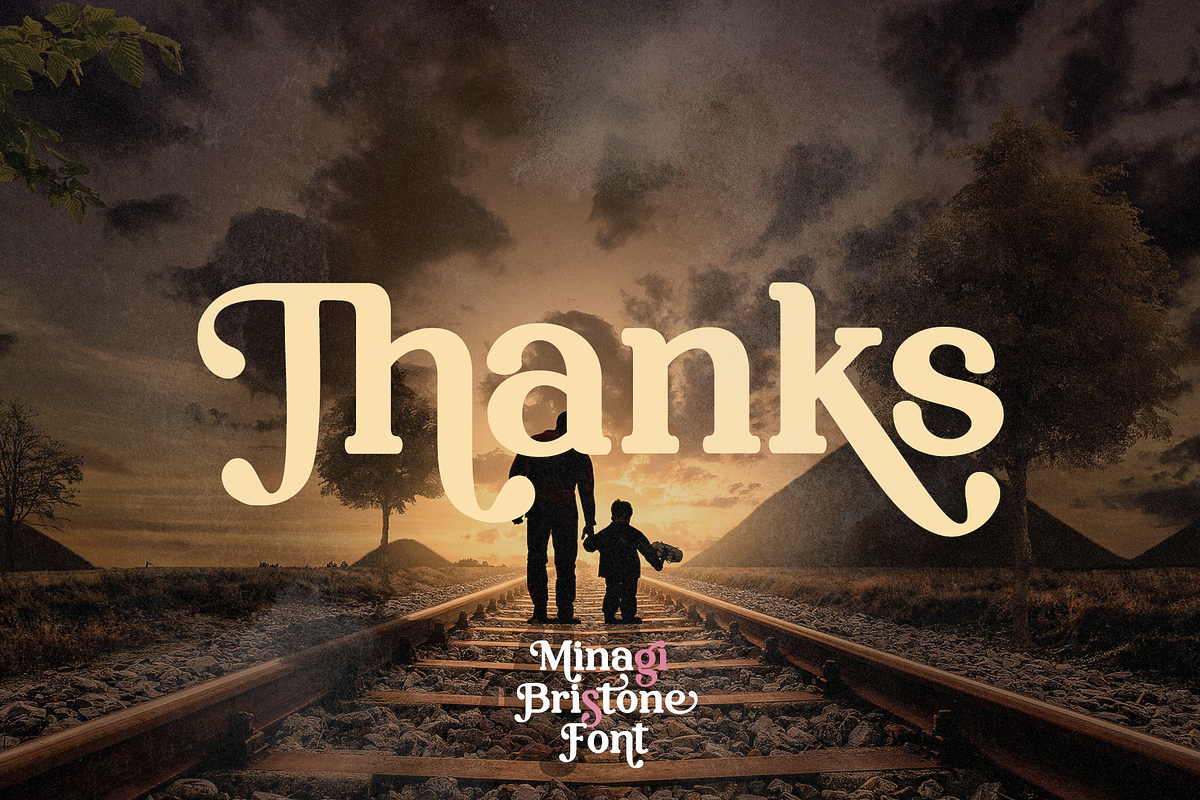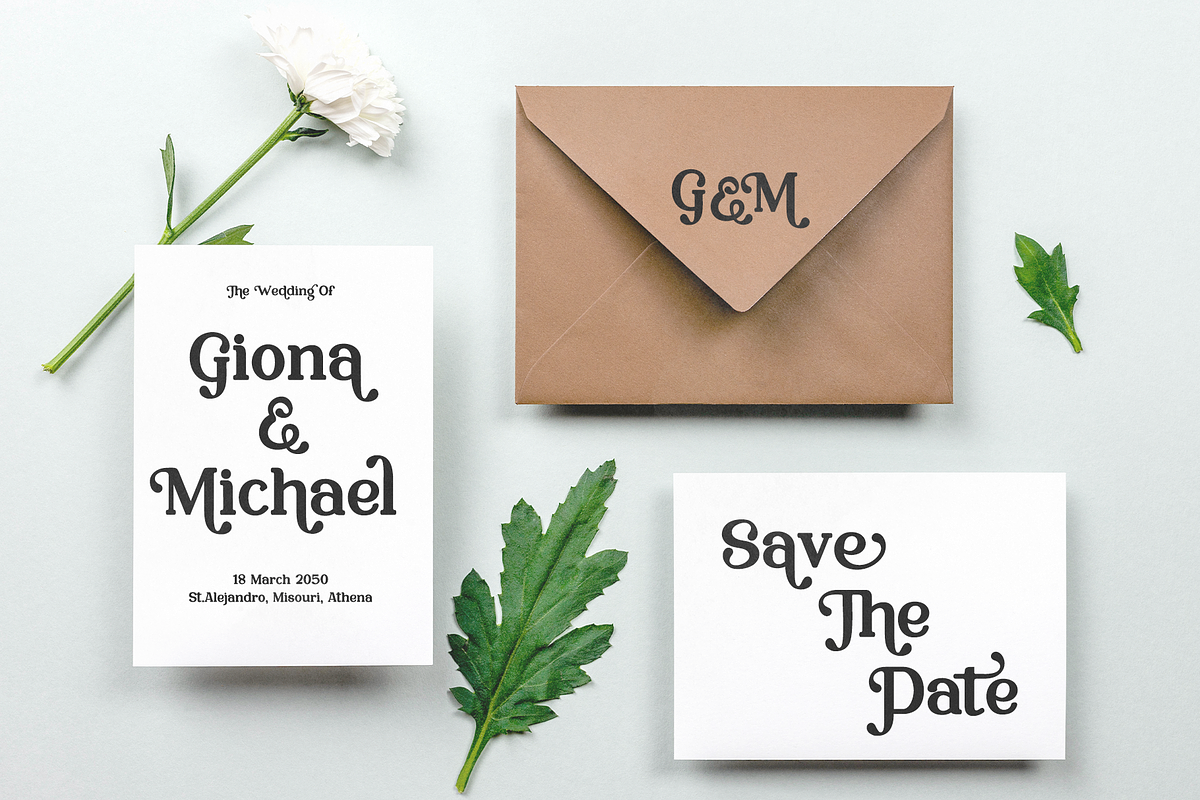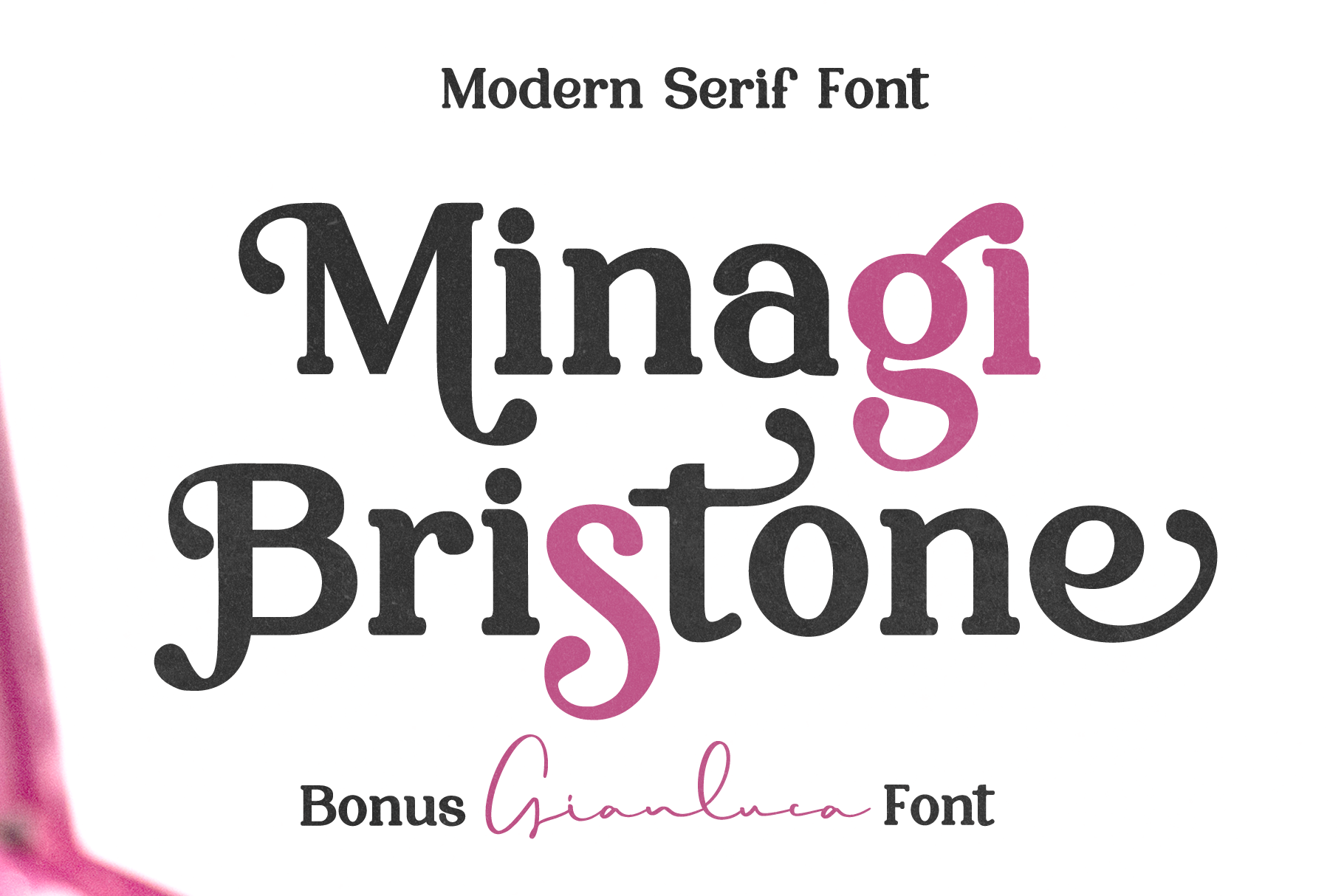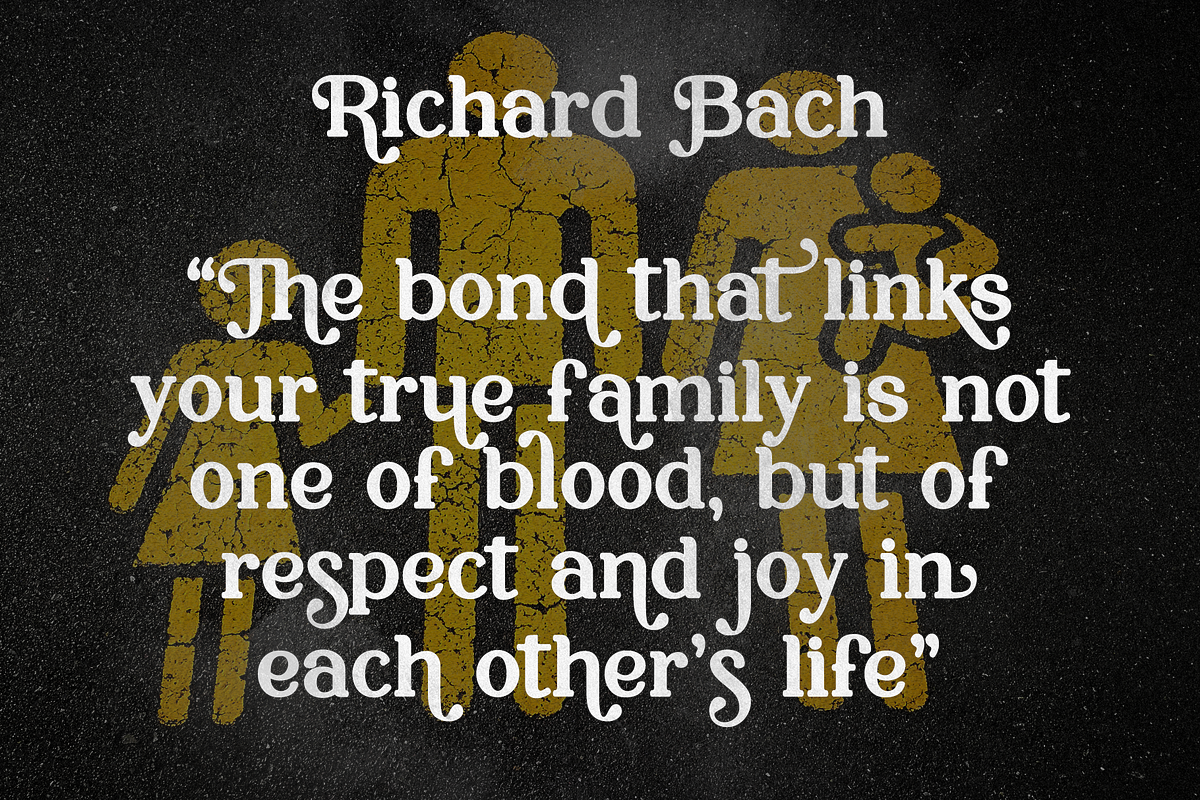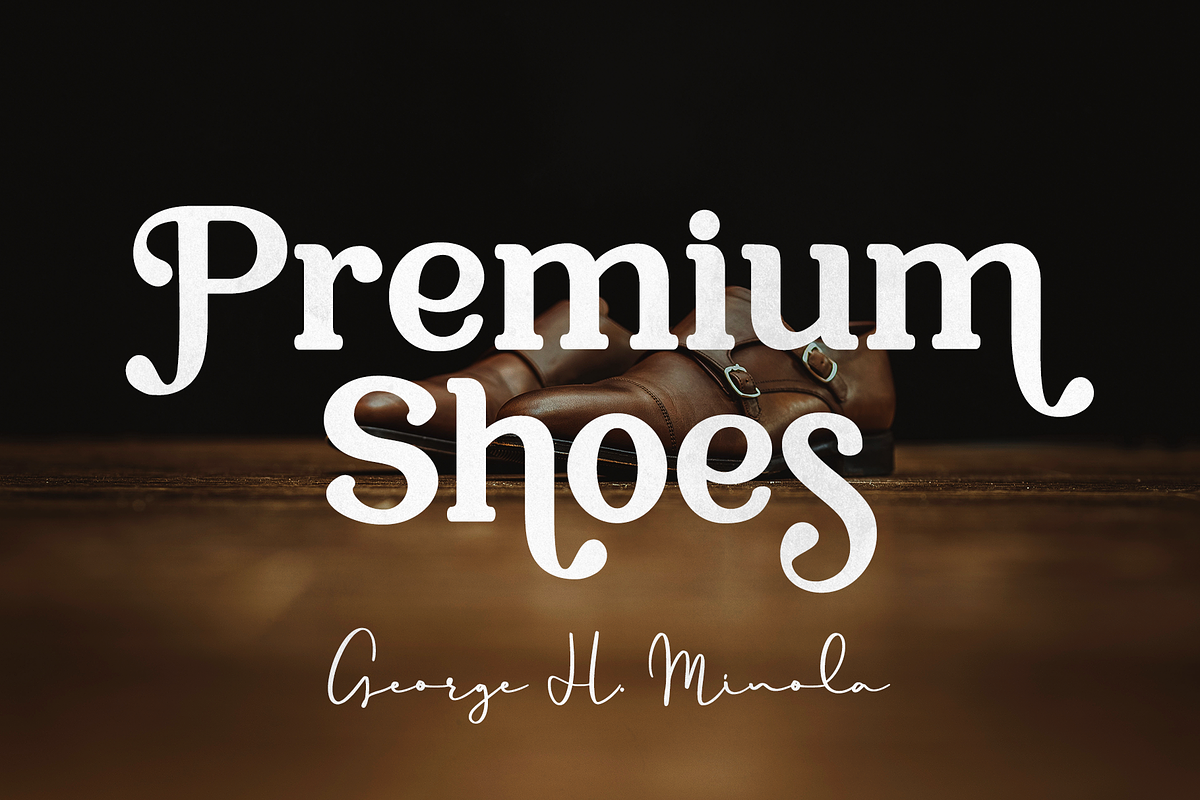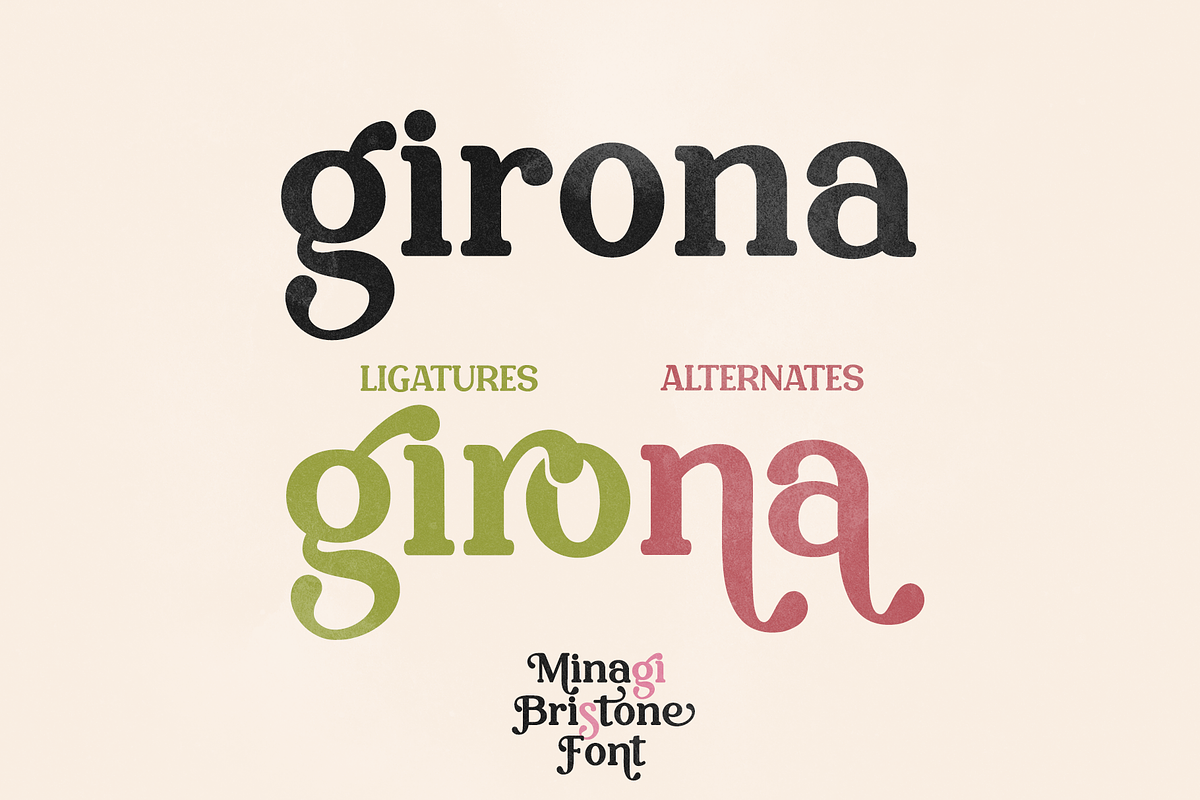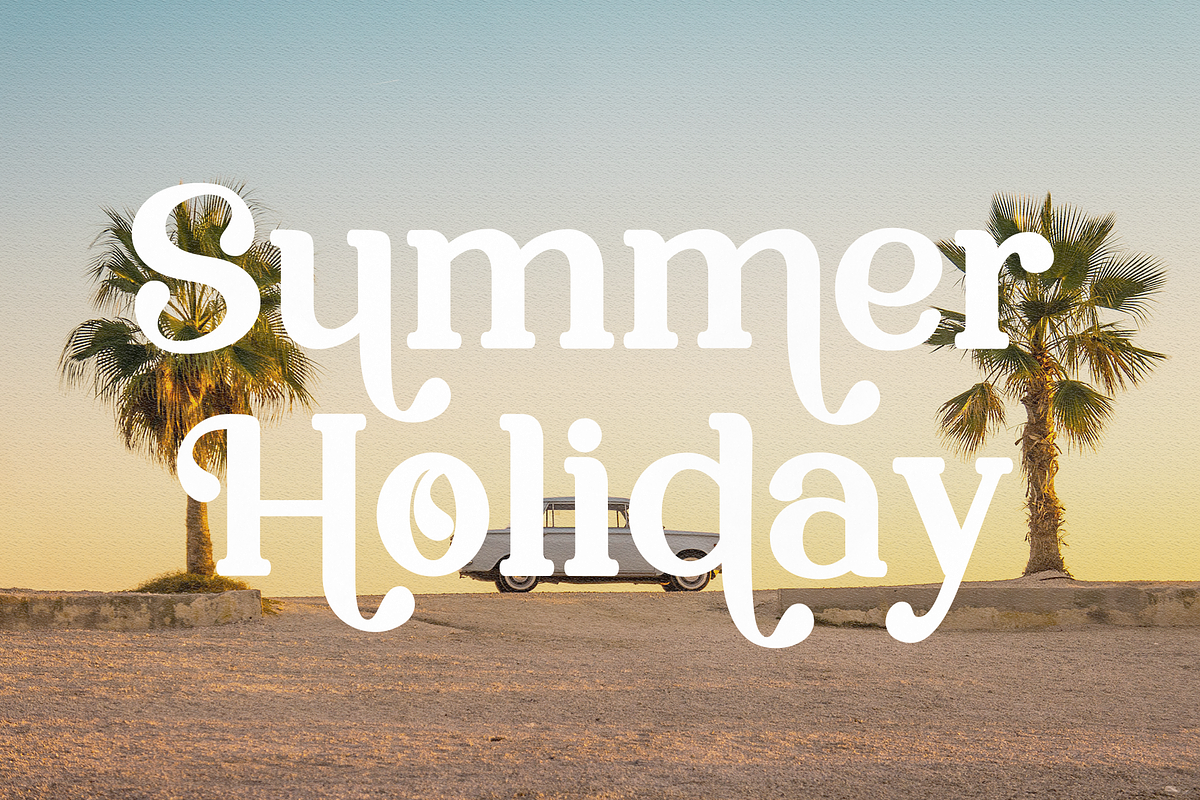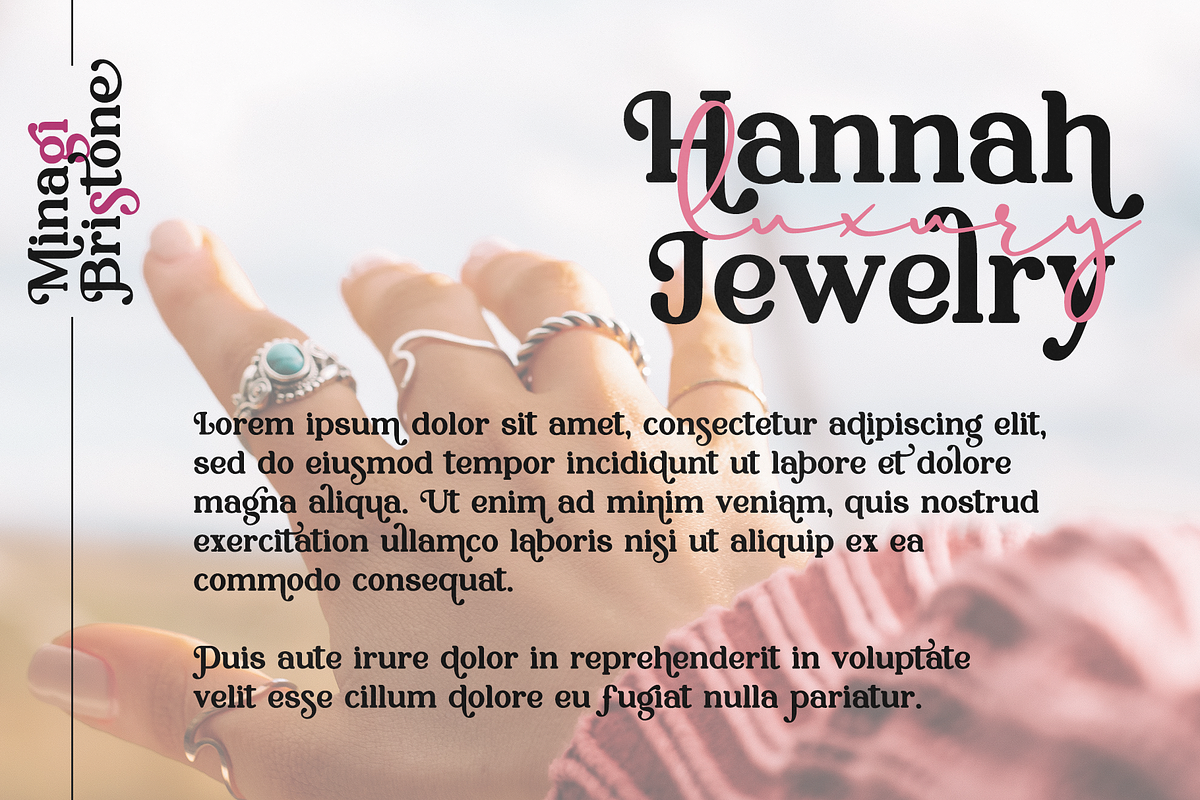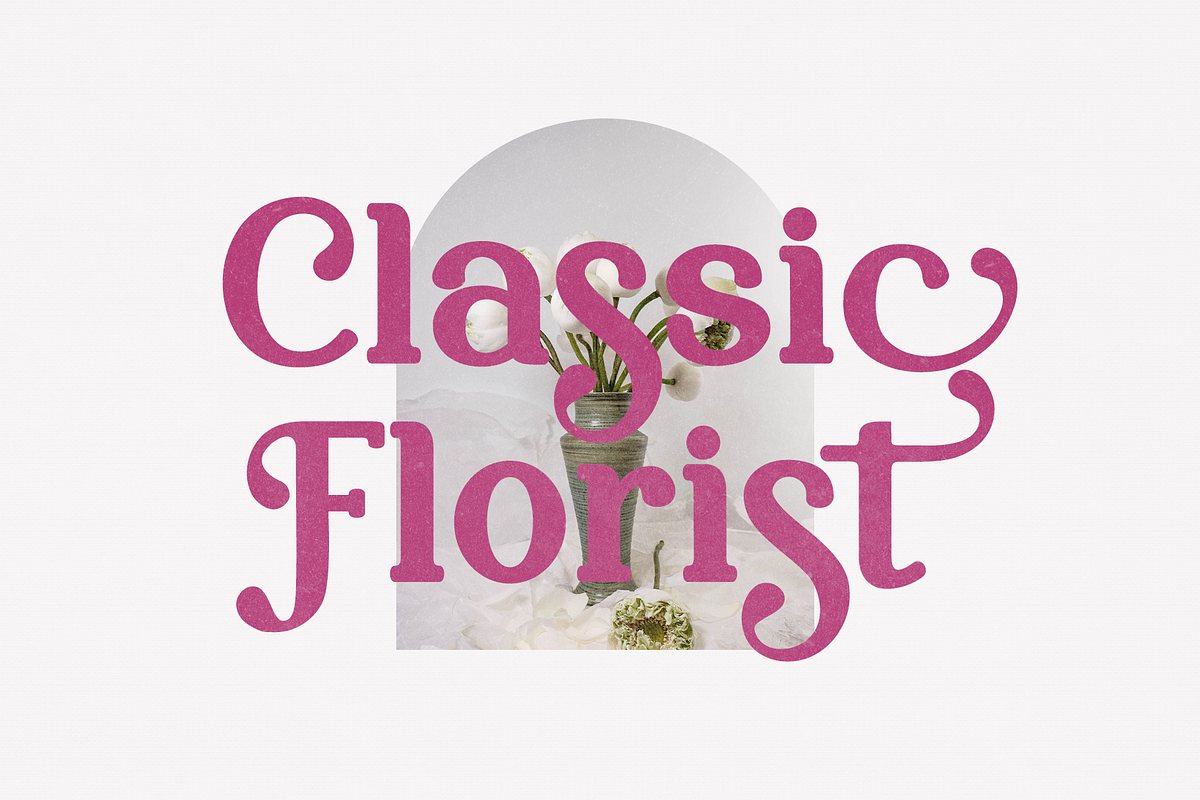
Minagi Bristone | Modern Serif Font
Minagi Bristone is a cool and stylish serif font, featuring its own unique style and modern look. Masterfully designed to become a true favorite, this font has the potential to bring each of your creative ideas to the highest level!
This typeface is perfect for an elegant & luxury logo, book or movie title, fashion brand, magazine, clothes, lettering, quotes and more.